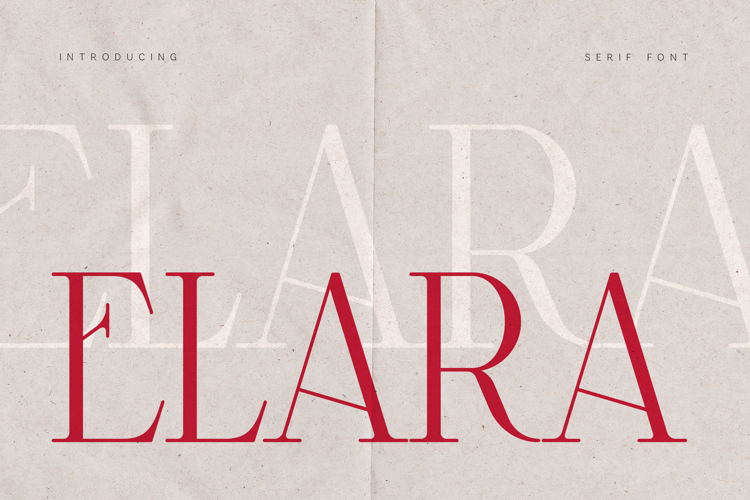
Elara Elegant Modern Serif Font
Elara is an elegant modern serif typeface designed for sophisticated branding and editorial design. With its refined proportions, delicate contrast, and graceful letterforms, Elara brings a timeless and luxurious feel to any creative project.
The typeface balances classical serif structure with contemporary minimalism, making it ideal for designers who want a stylish yet highly readable font. Its clean curves and sharp details give the font a distinctive editorial character that works beautifully across a wide range of visual applications.
Elara is perfect for luxury branding, fashion magazines, logo design, product packaging, wedding stationery, and modern editorial layouts. The elegant letterforms create strong typographic compositions while maintaining clarity and balance.
The font includes uppercase letters, lowercase letters, numbers, punctuation, and extended multilingual characters, allowing designers to work across many international languages with ease.
Whether you’re designing a refined brand identity, a stylish magazine layout, or elegant packaging, Elara delivers timeless sophistication and modern elegance.